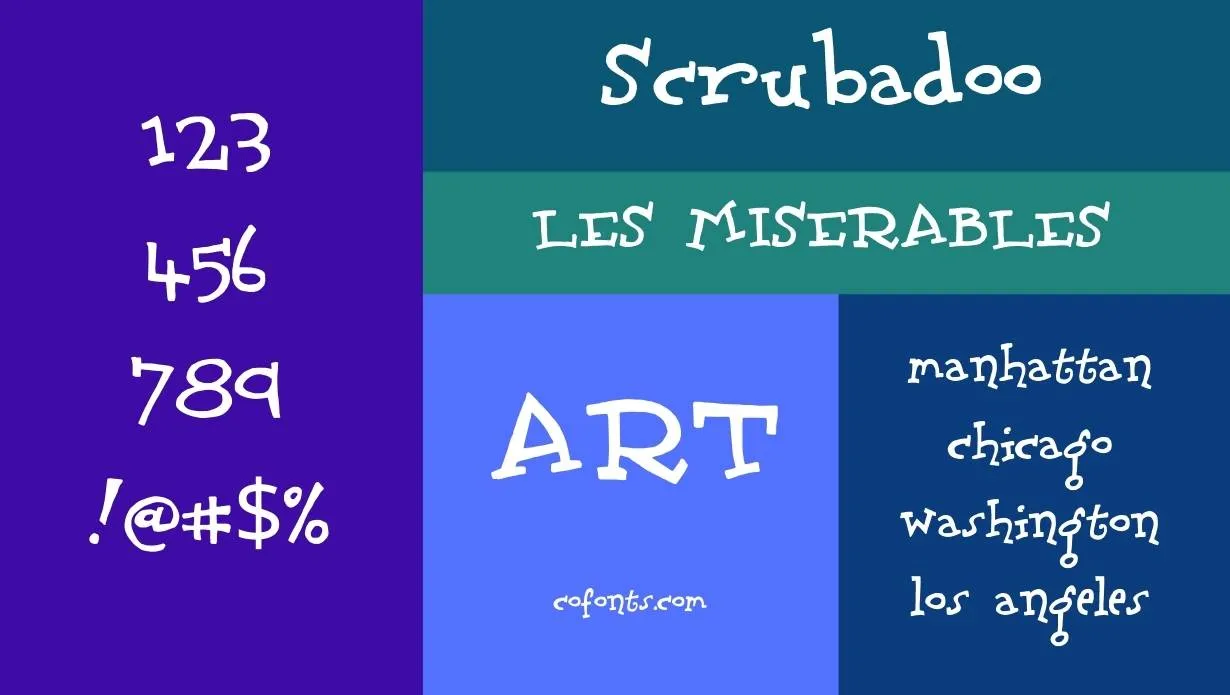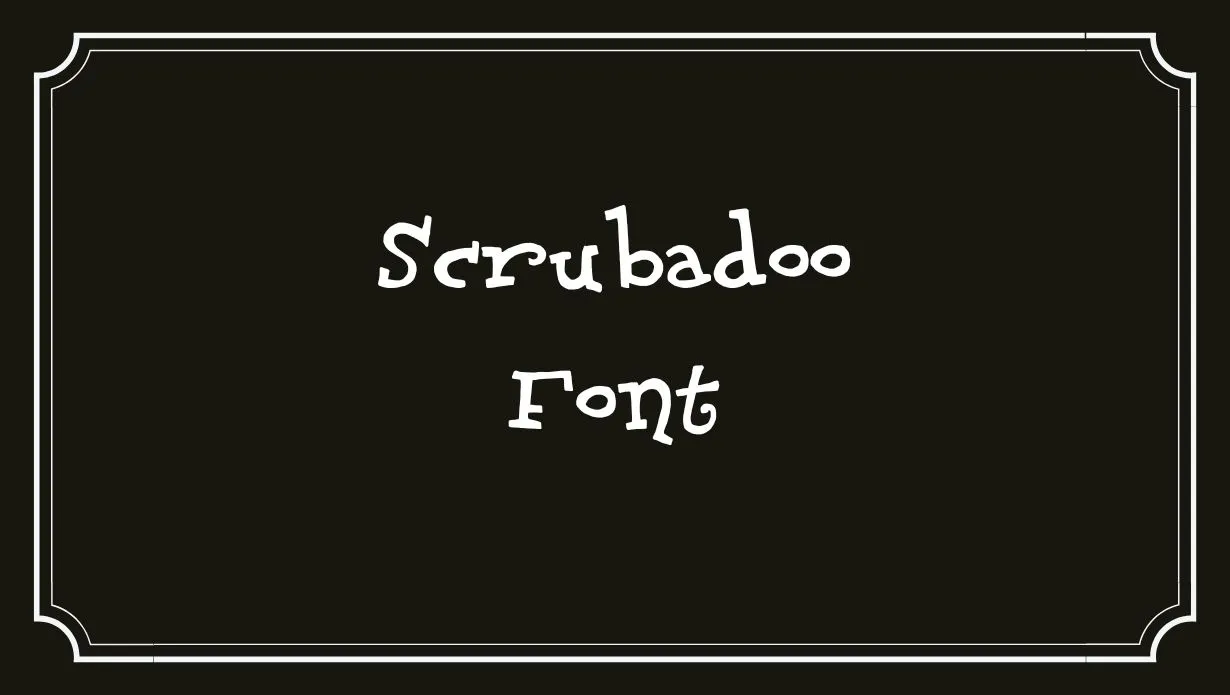
About Scrubadoo Font
Scrubadoo is an exuberant and informal display font that captures the energy of a child's drawing. Its irregular, bubbly letterforms appear as if drawn with a thick marker, creating a sense of spontaneity and joy. The font's inherent friendliness and accessibility make it an excellent choice for children's books, toy packaging, educational materials, playground signage, and any brand that wants to communicate in a lighthearted, approachable, and youthful voice.